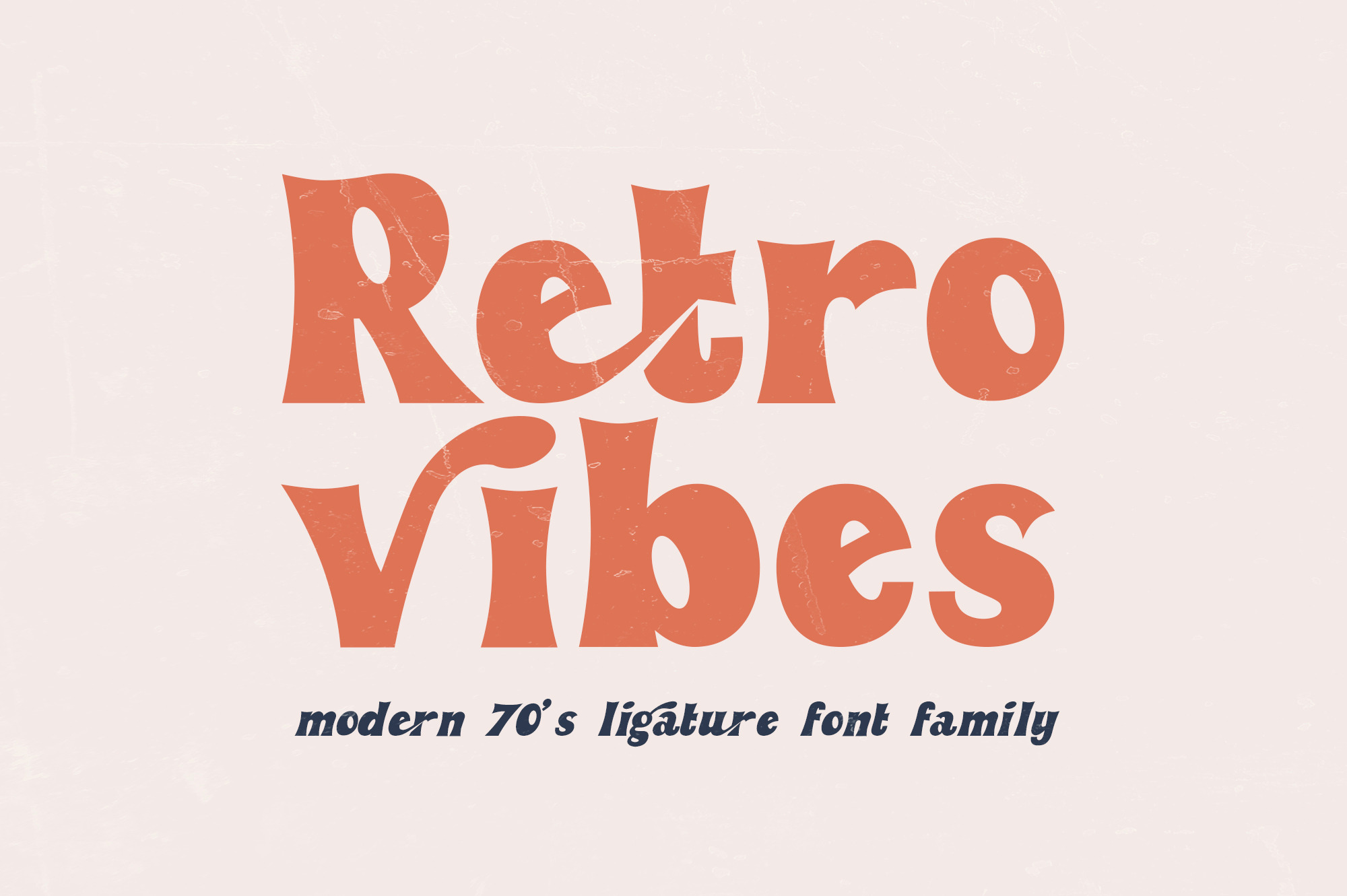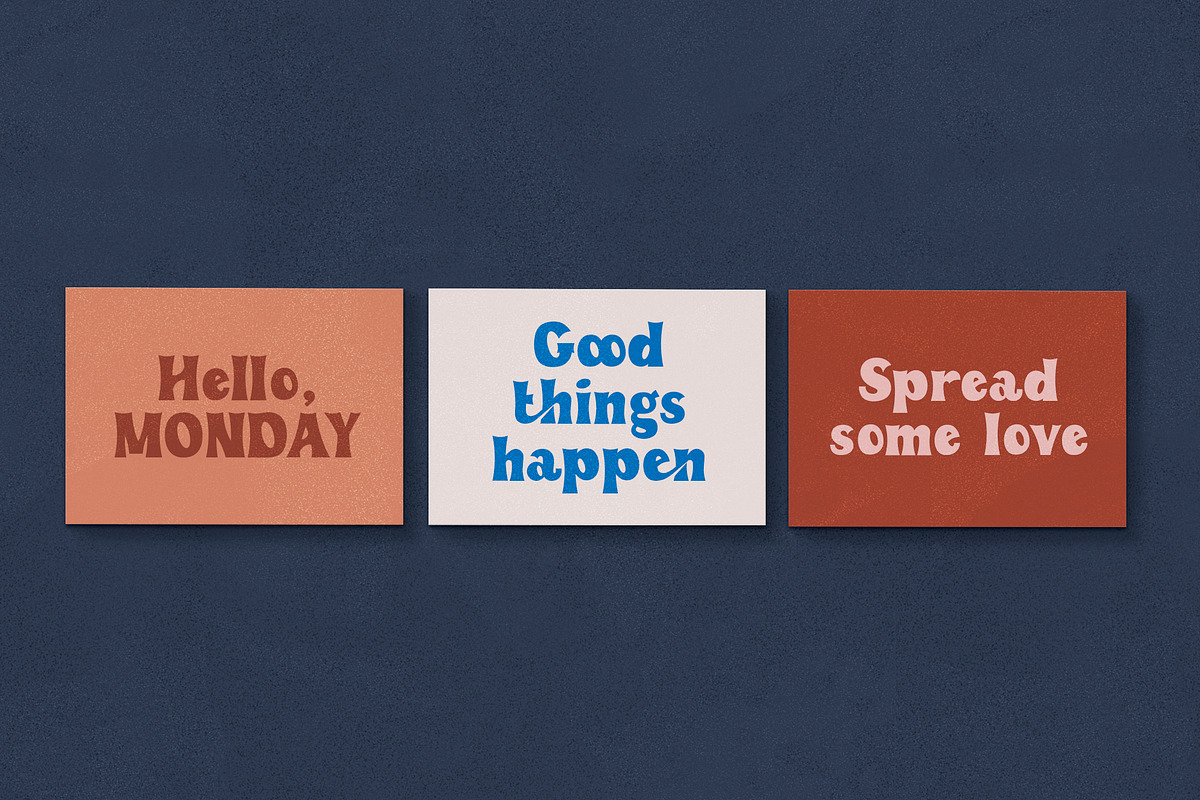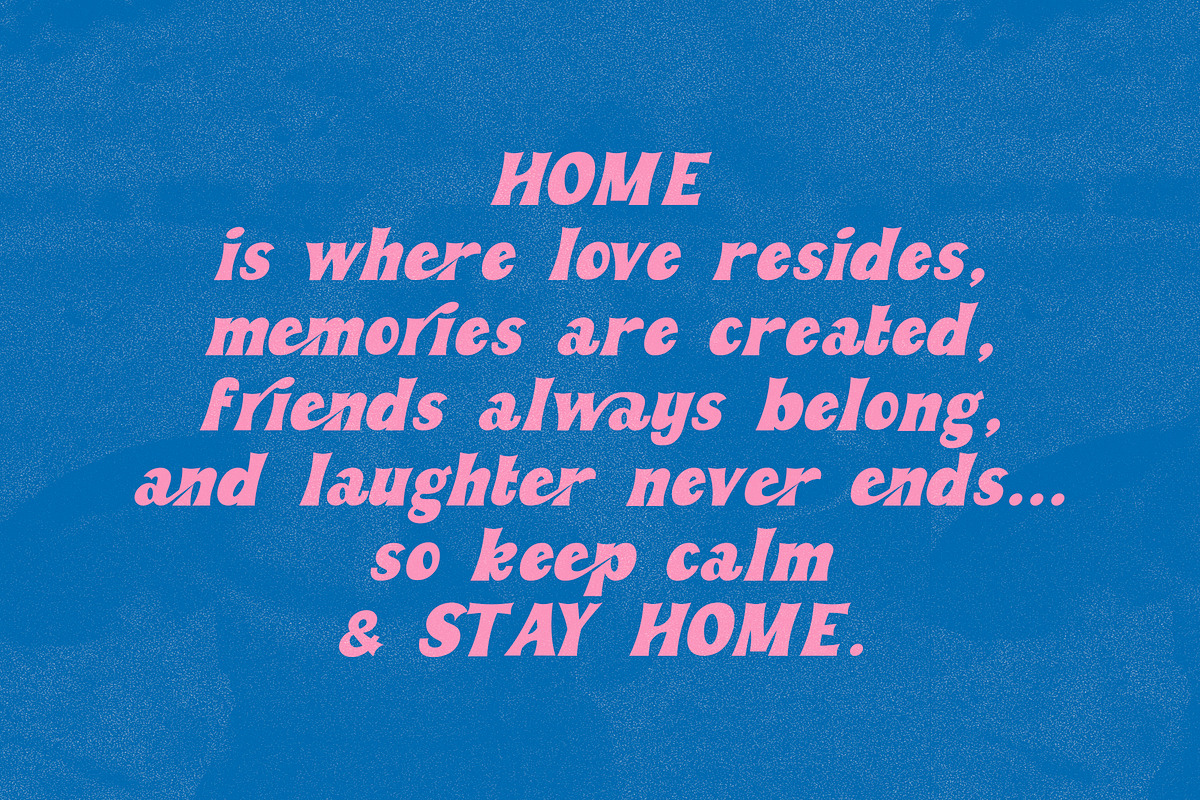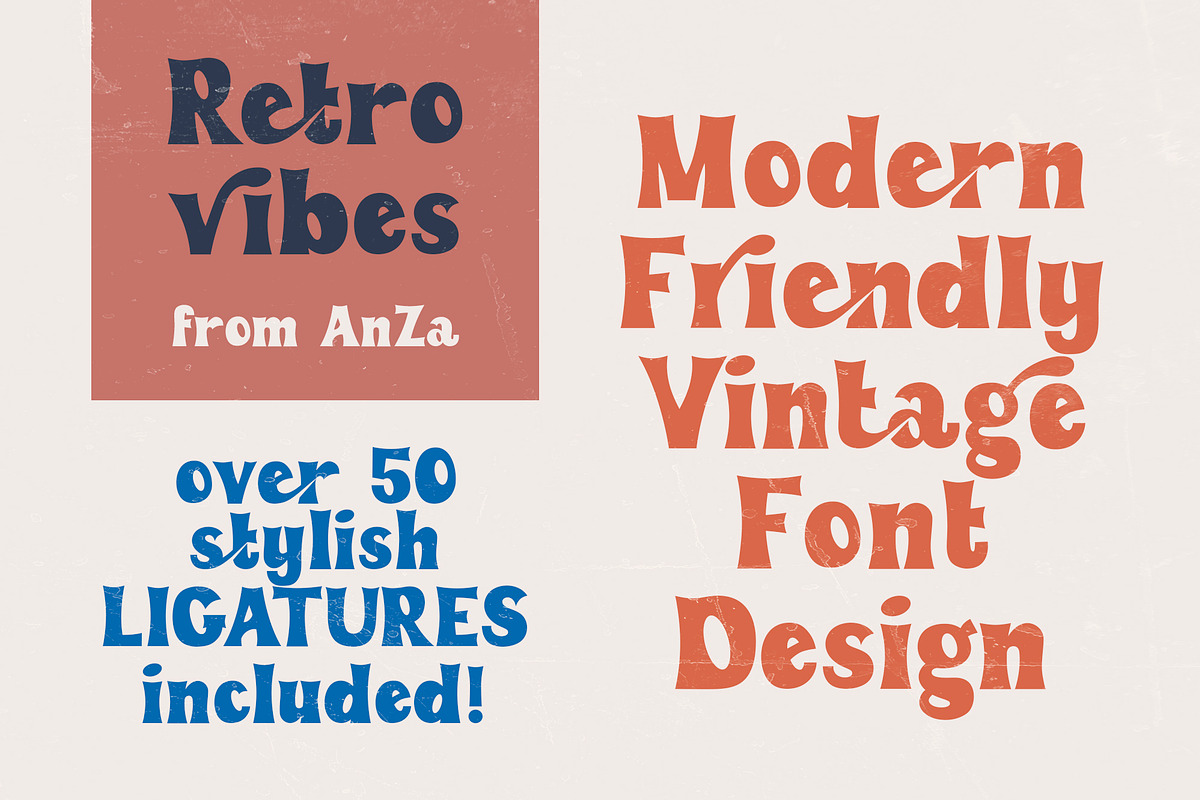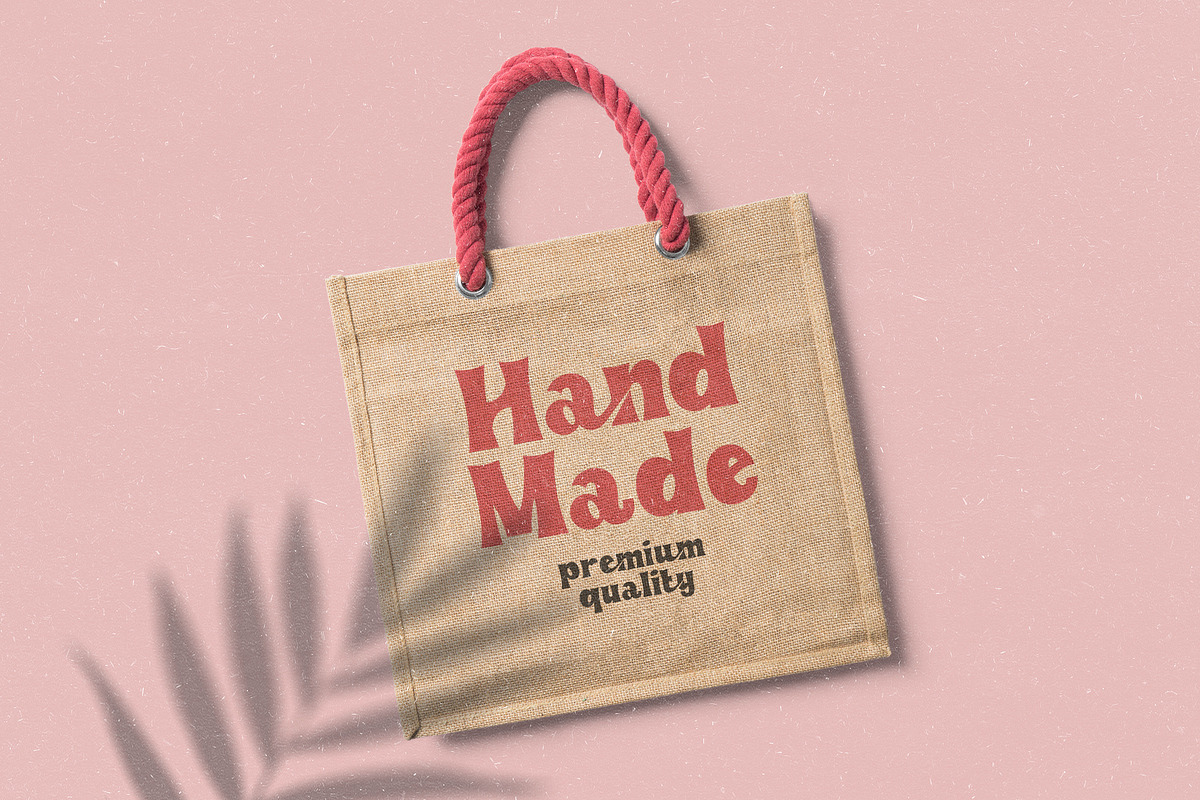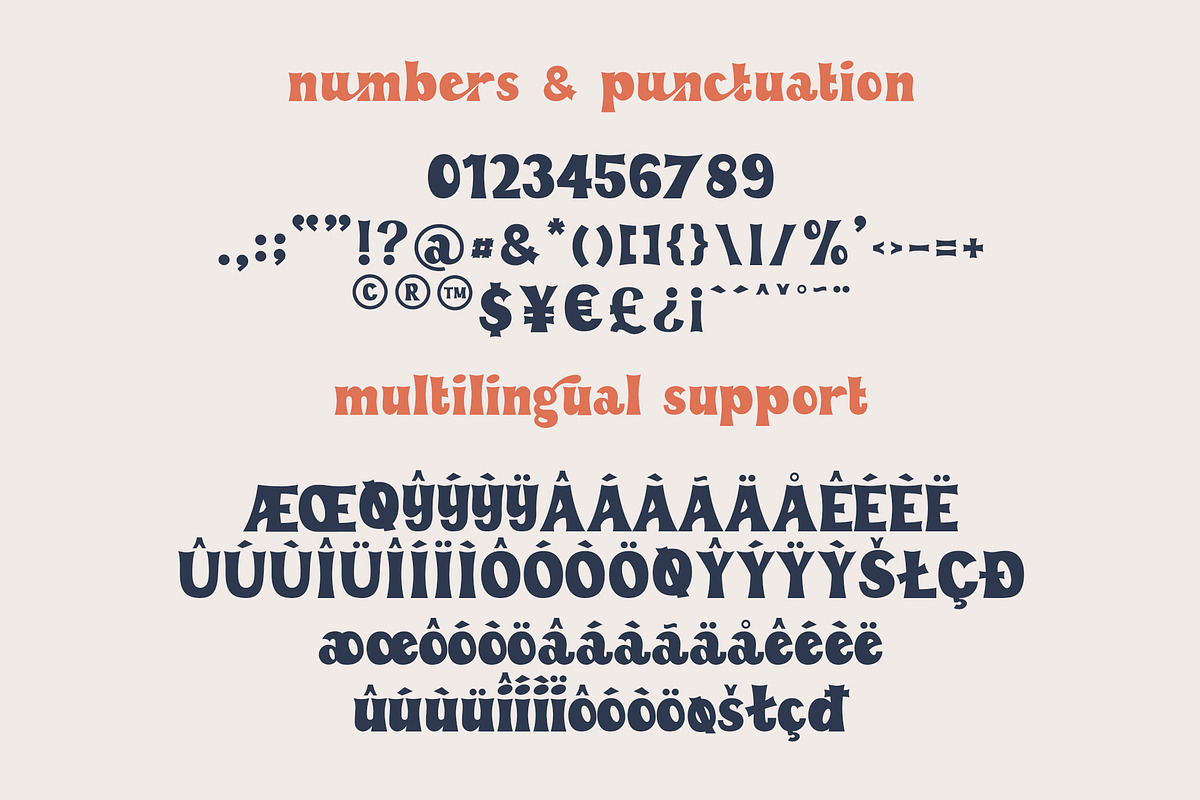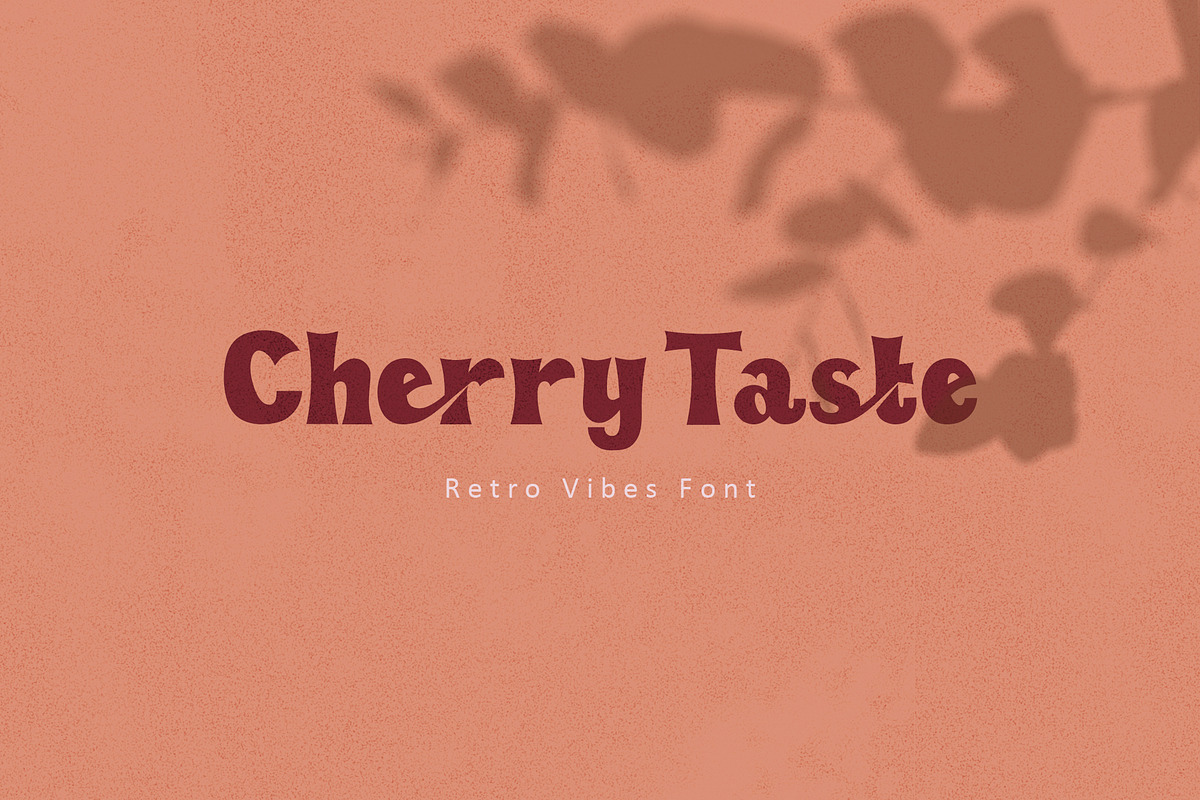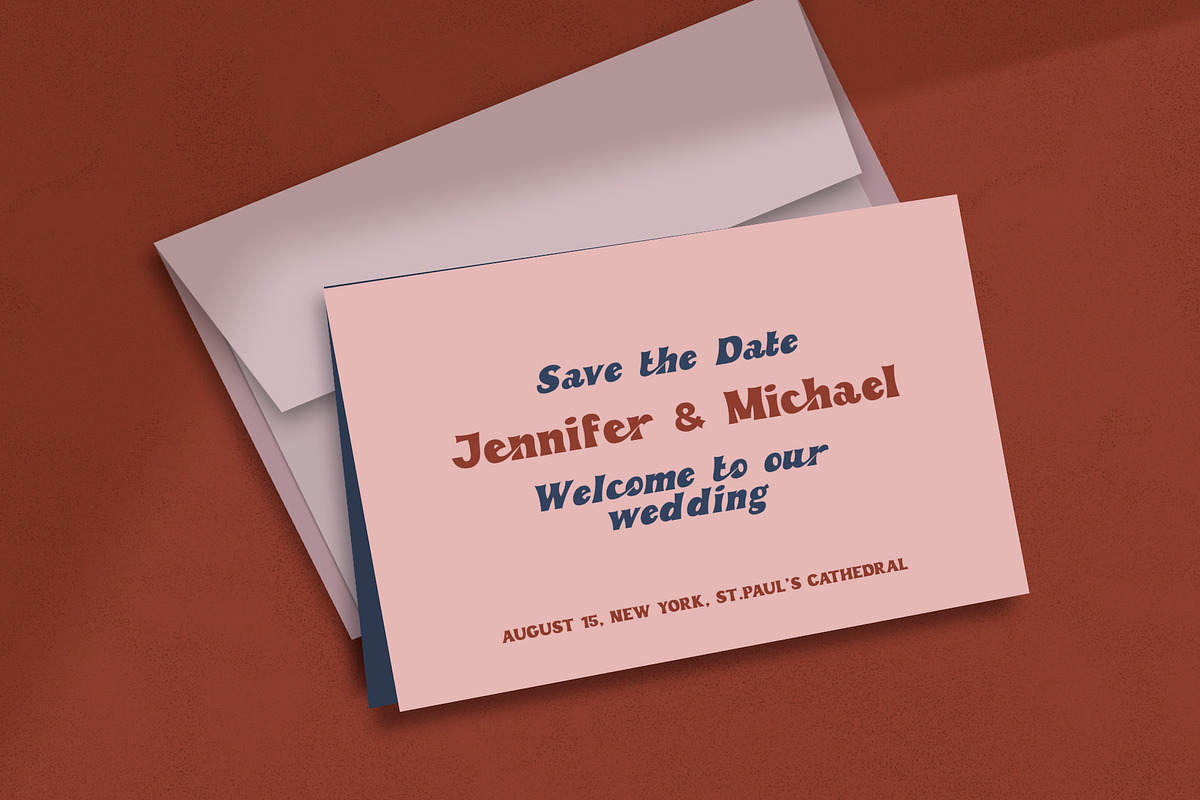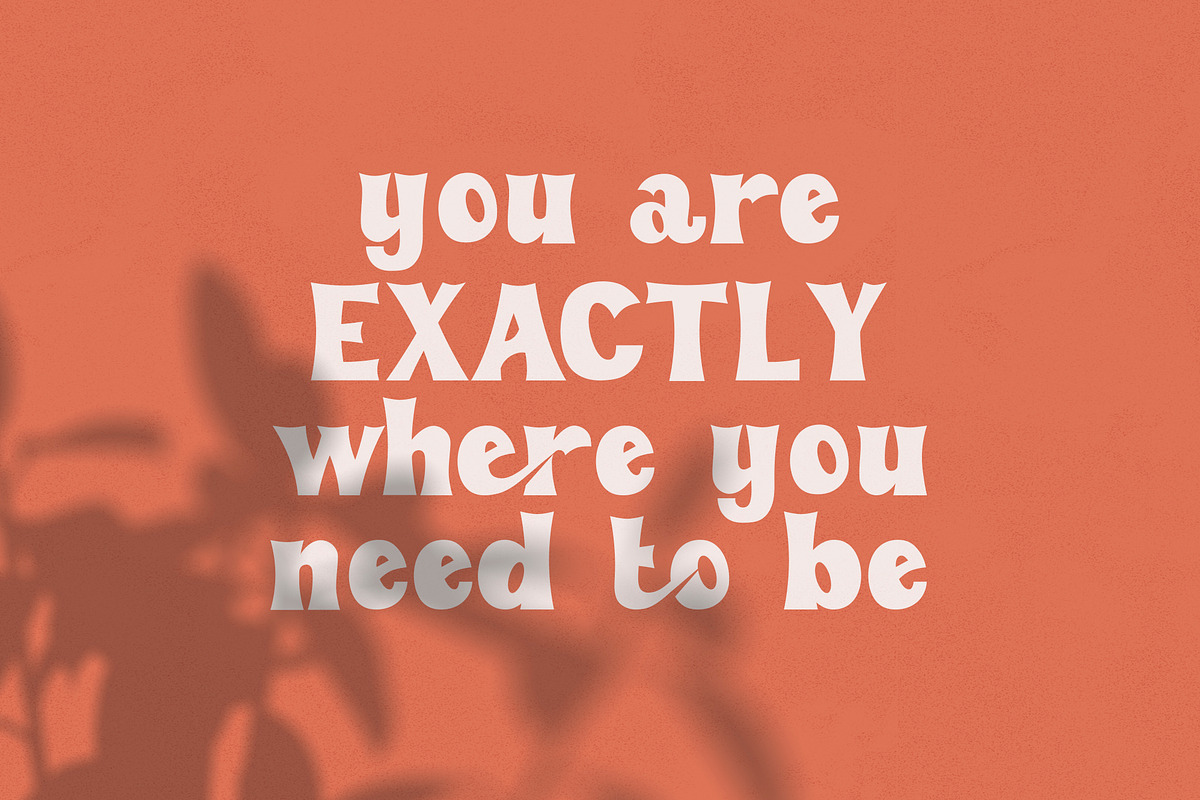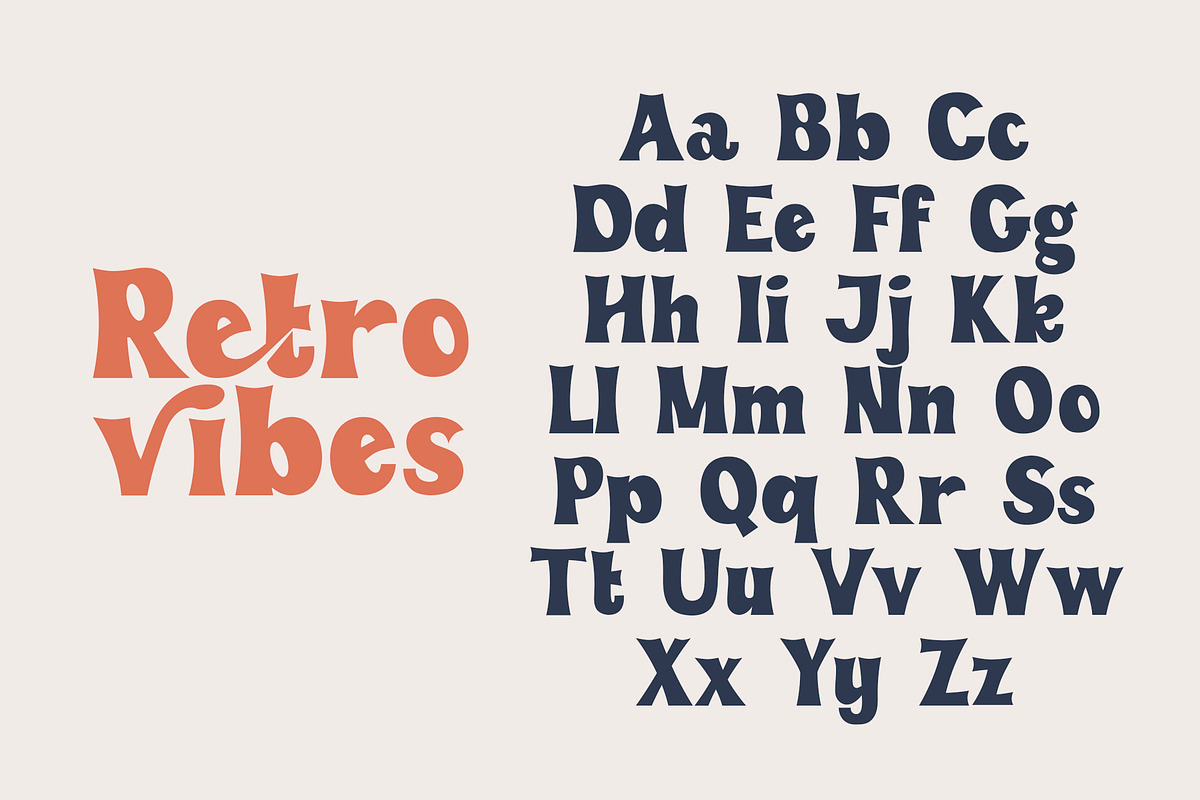
Retro Vibes | Vintage Bold Font
Introducing "Retro Vibes" - a brand new vintage bold font with more than 50 stylish ligatures.
It has both modern and vintage look - clear, elegant and fun. Helps to create Retro cartoon style in 60s or 70s design projects. You can type with regular letters or access Open Type features for a large selection of ligatures to give your logo or business card a unique vintage look.
Retro Vibes is a very versatile font, suitable for a different project types: for magazine publishing, fashion and art, works great in blogs, posters, flyers, logos, headlines, packaging, advertising, wedding invitations, branding and so much more.
Retro Vibes font has uppercase, lowercase letters, over 50 opentype ligatures, numbers & basic punctuation, multilingual support (French, German, Italian, Norwegian, Portuguese, Spanish, Swedish, Swiss German).